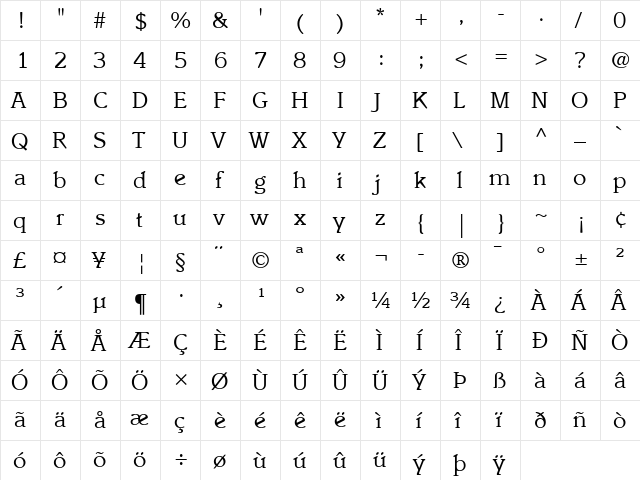
Italia LT Book Regular
Design Context for Italia LT Book Typeface
Italia LT Book is a composed and adaptable typeface that performs quietly and consistently across a wide range of design contexts. The delicate stroke weight brings airiness and refinement to layouts.
Pro Tip: Pair Italia LT Book with a font of contrasting weight or personality to build a more expressive typographic hierarchy.